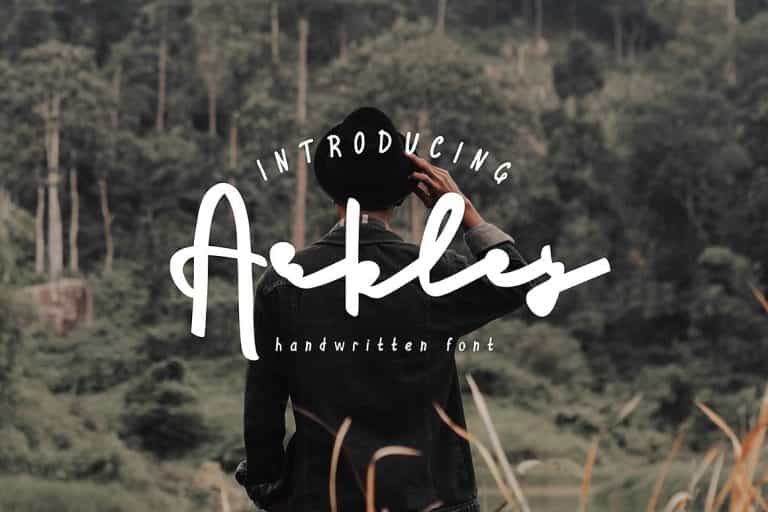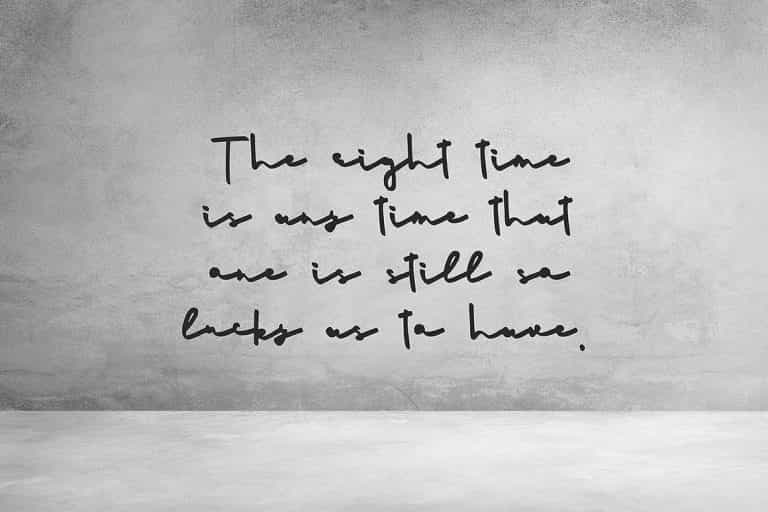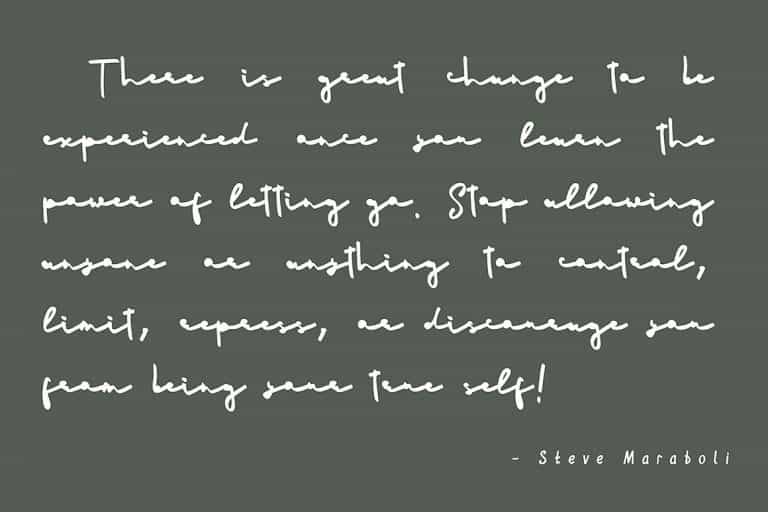
Introducing Arkley Font. Arkley is a place with its own special flow and easy-to-spot styling. Arkley includes the capital, lower case letters and standard punctuation, numbers and special characters for most of the European languages.